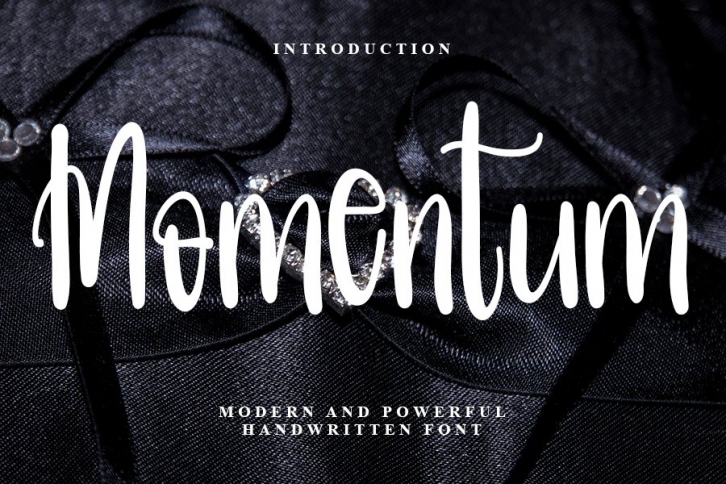
Momentum is a great font that was designed by KINSTUDIO. Imagine the amount of combinations you can create using this font! The archive is 3.75 MB and it was released on November 17, 2021. Momentum looks beautiful on wedding invitations, greeting cards, logos, posters, labels, t-shirt designs, logos, business cards and is perfect for use in ink or watercolor works, fashion, magazines, packaging and food menus, children's books and more!